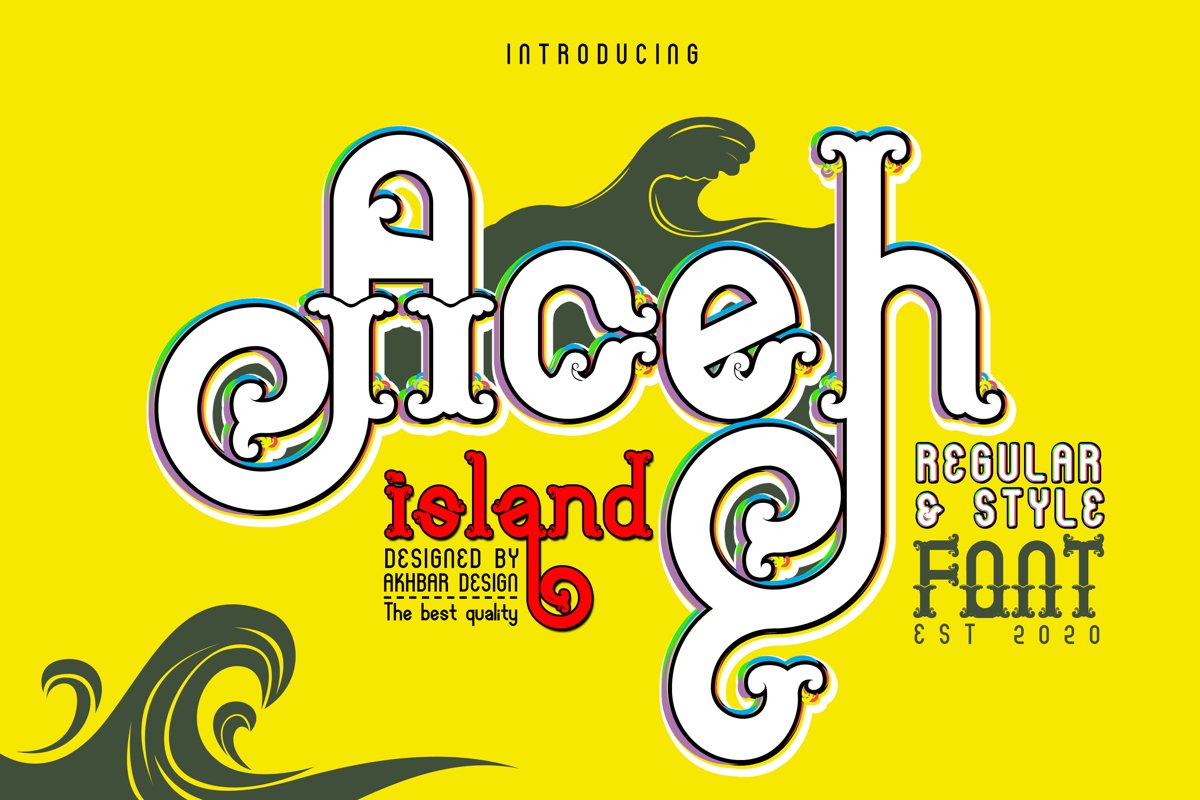
Aceh island
Aceh island style 1
Aceh island style 2
Aceh island style 3
Aceh island style 5
Aceh island style 4
Aceh island is a font that has the theme of waves or water, by using this font every project that is done will look more attractive and does not eliminate the essence of every design you make, this font will further highlight its character if combined with a beach-themed design.